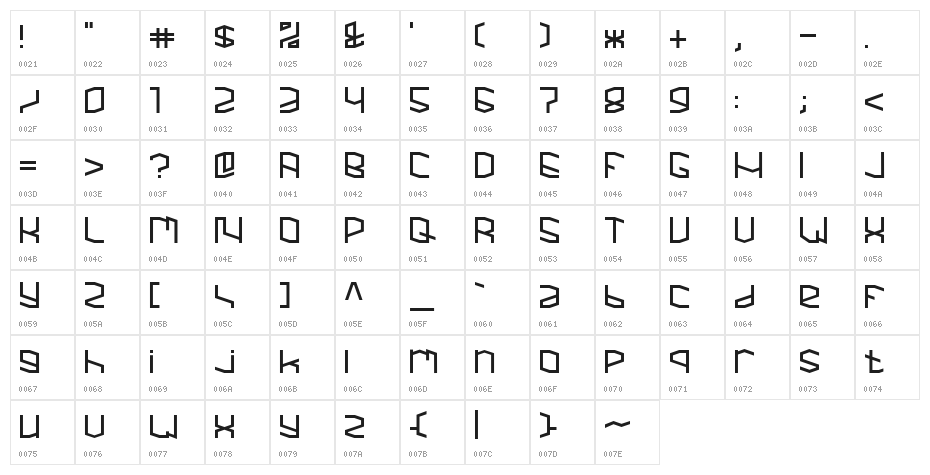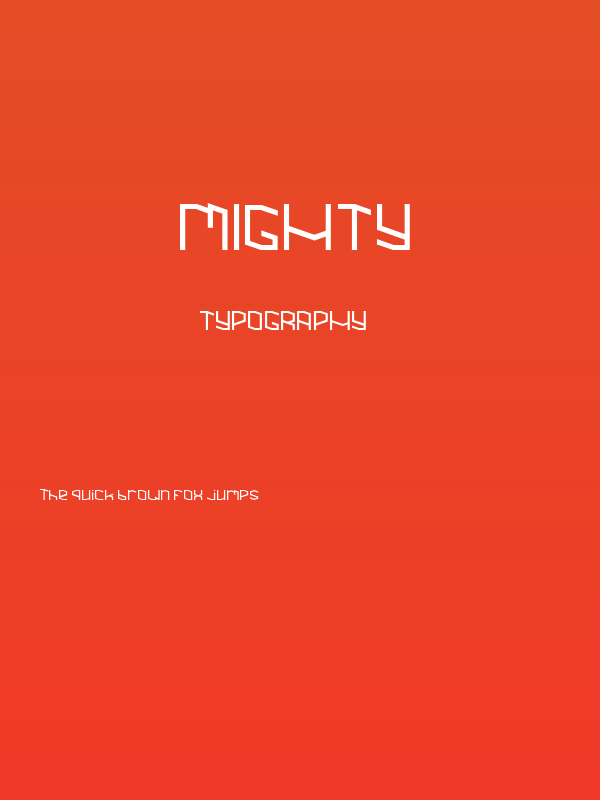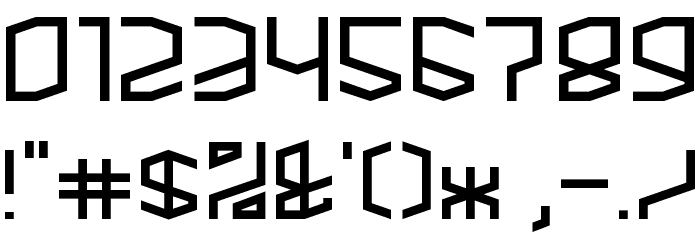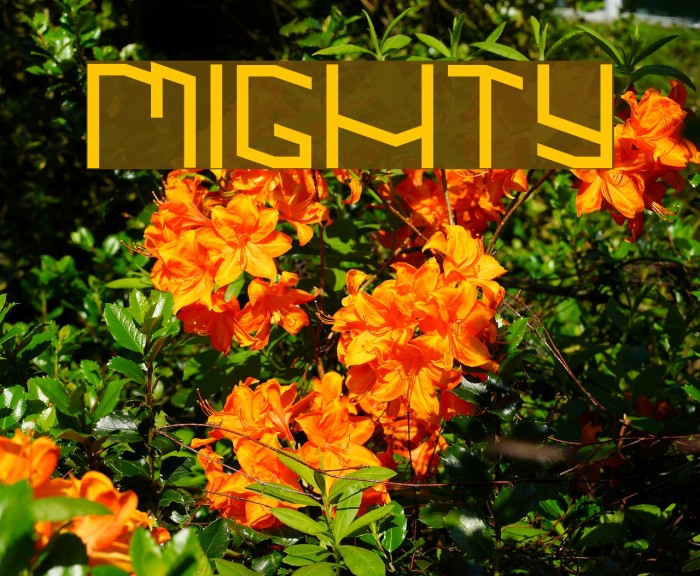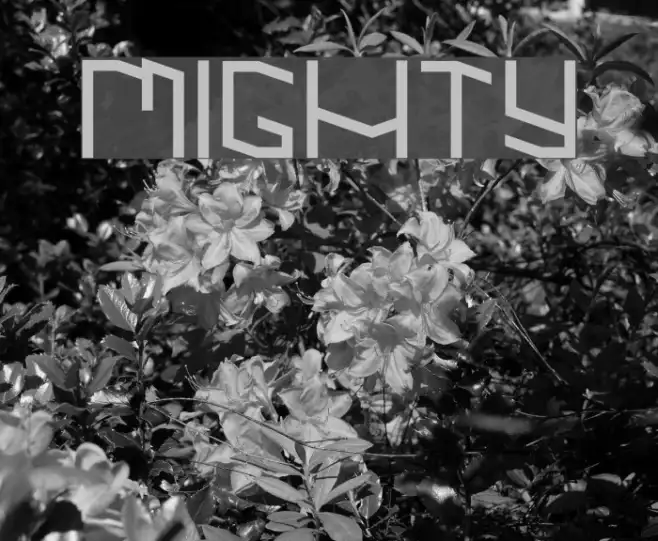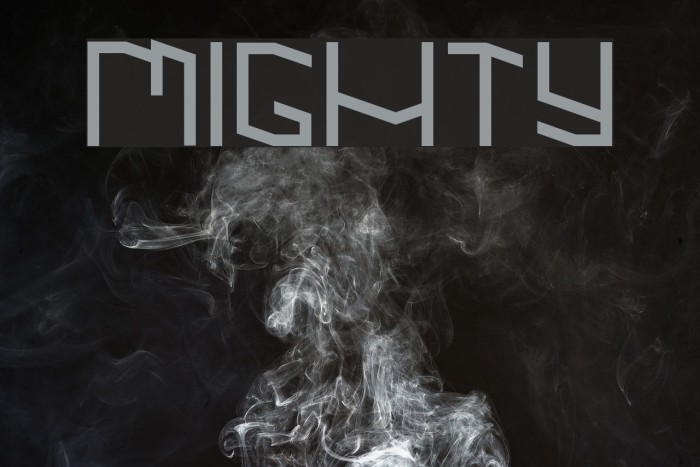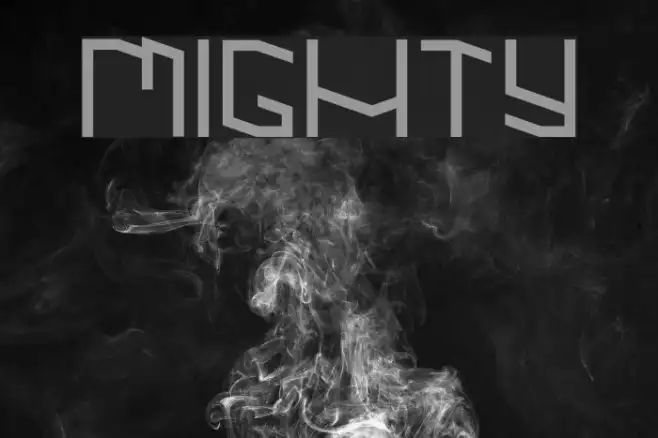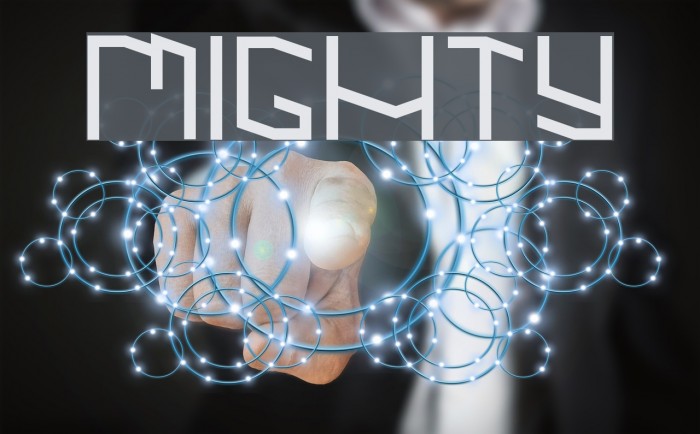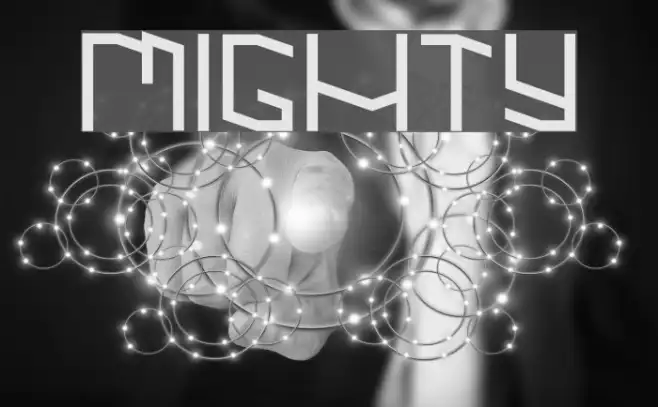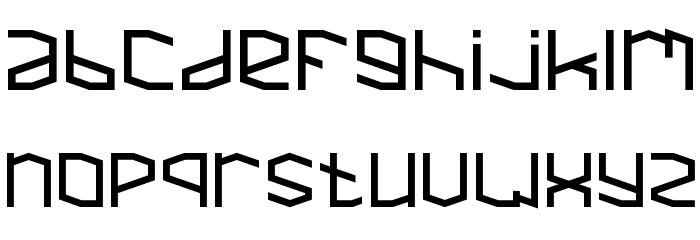
MIGHTY Font
MIGHTY Description
This font features a bold, geometric design with angular lines and a futuristic aesthetic. Each character is constructed with straight edges and sharp corners, giving it a highly structured and modern appearance. The uppercase and lowercase letters maintain a consistent style, with a uniform height and width that enhances readability. Numbers and special characters follow the same geometric pattern, ensuring a cohesive look across all text elements. The font's unique style makes it stand out, making it suitable for projects that require a strong visual impact.
| Proposed Projects | Ideal for technology branding, sci-fi themed projects, video game titles, and modern poster designs. |